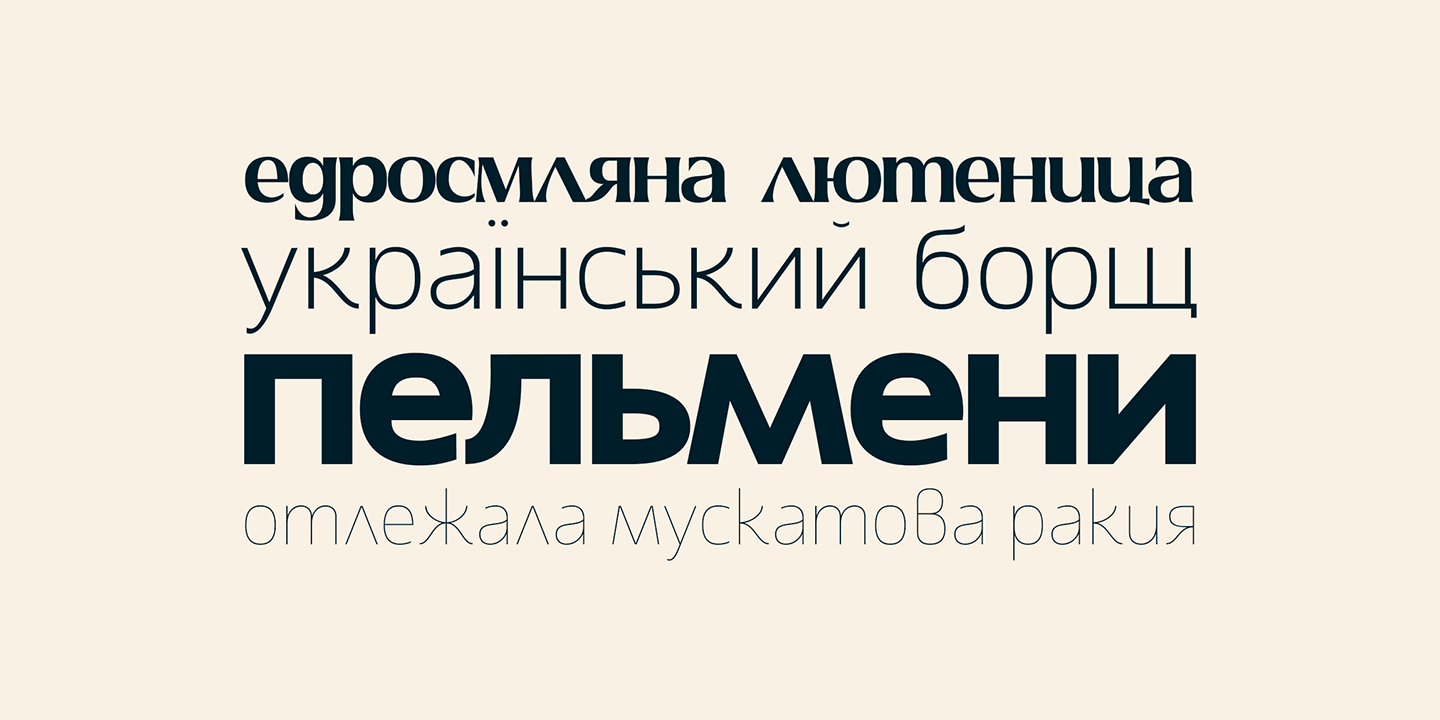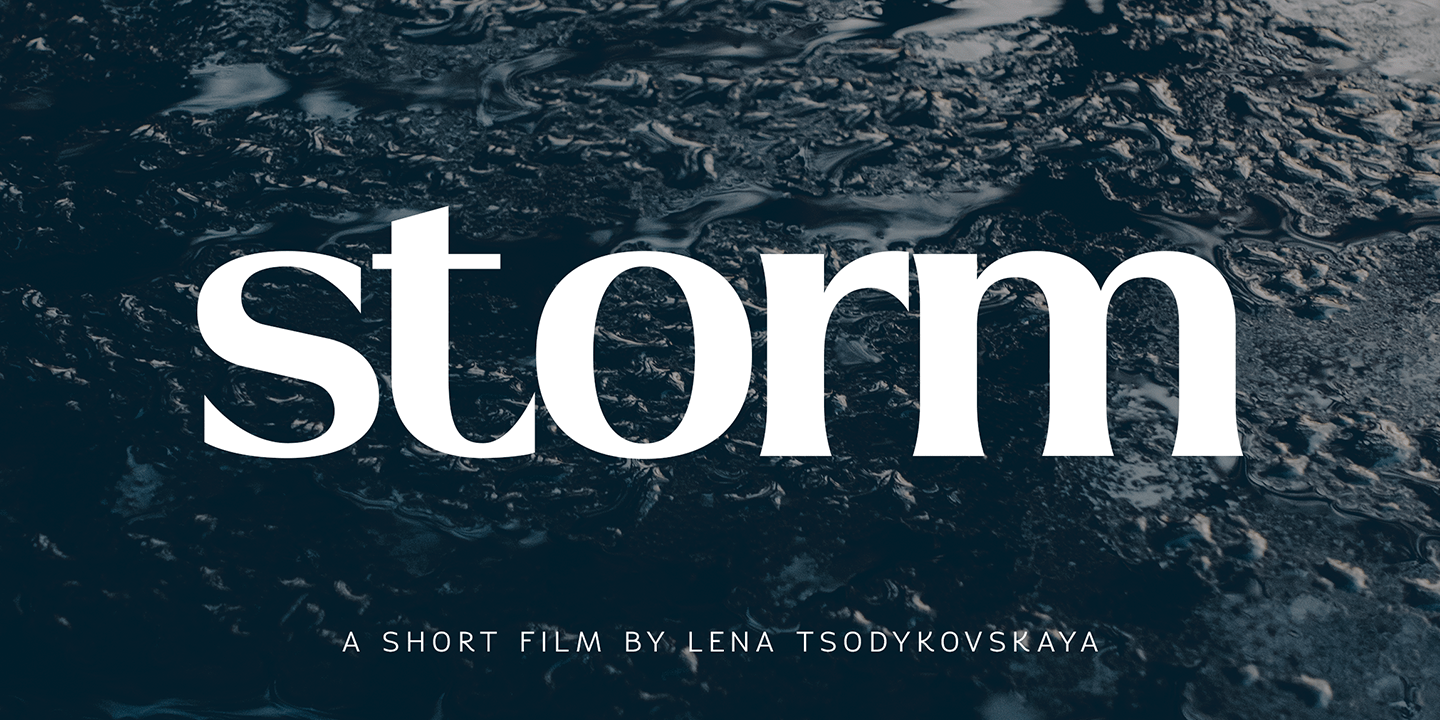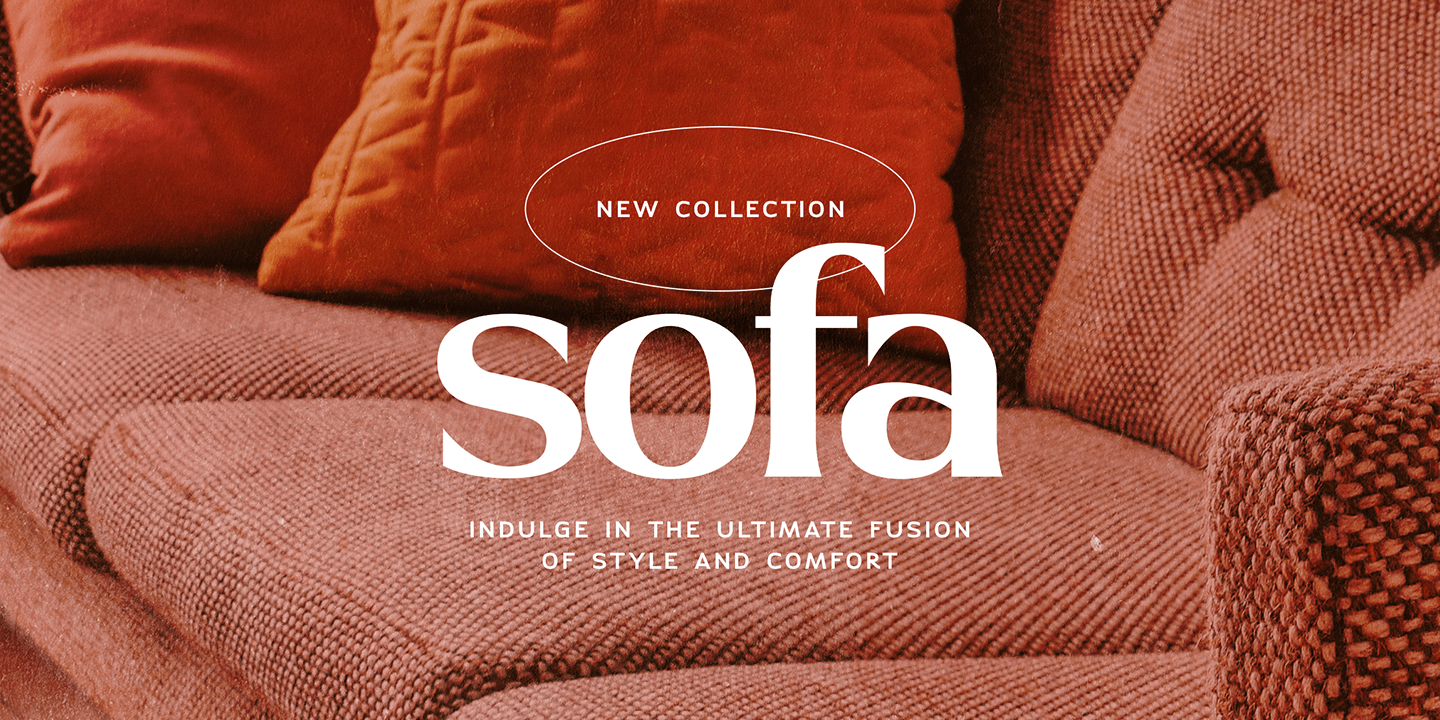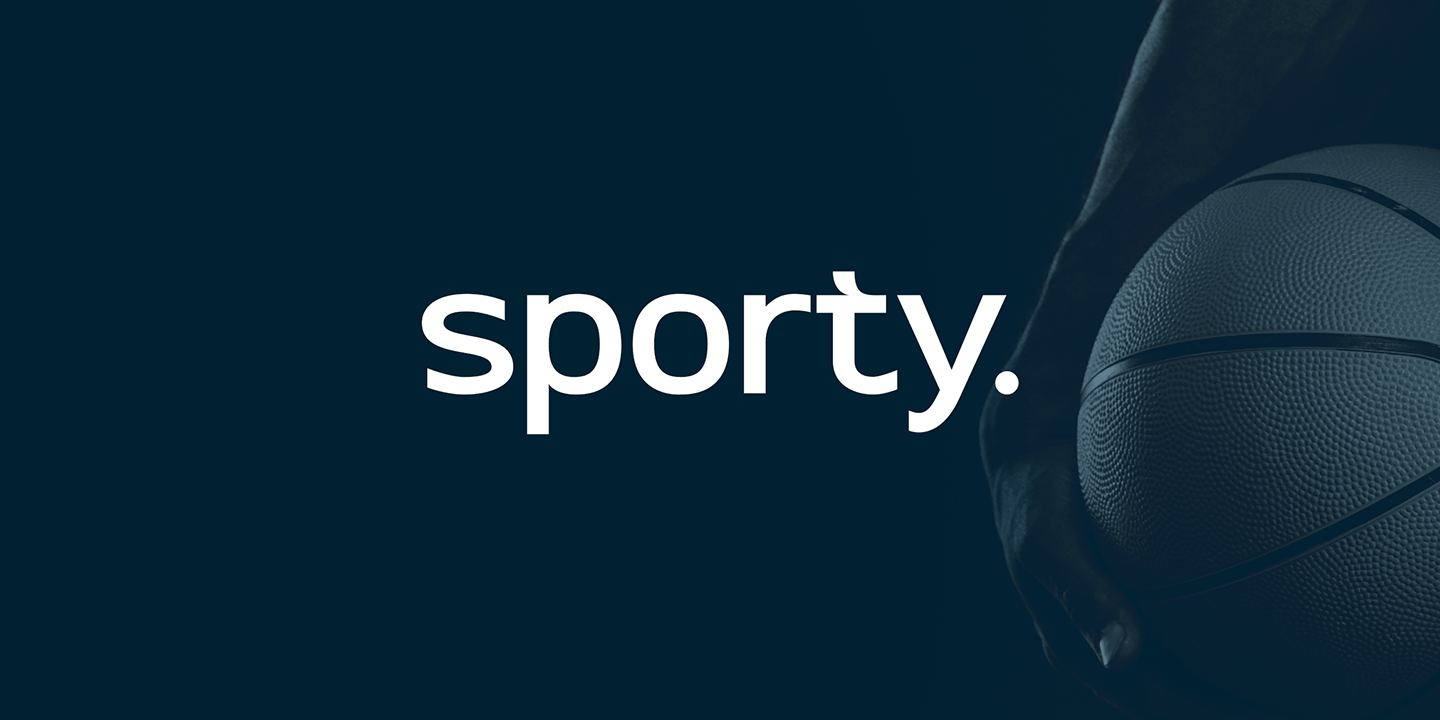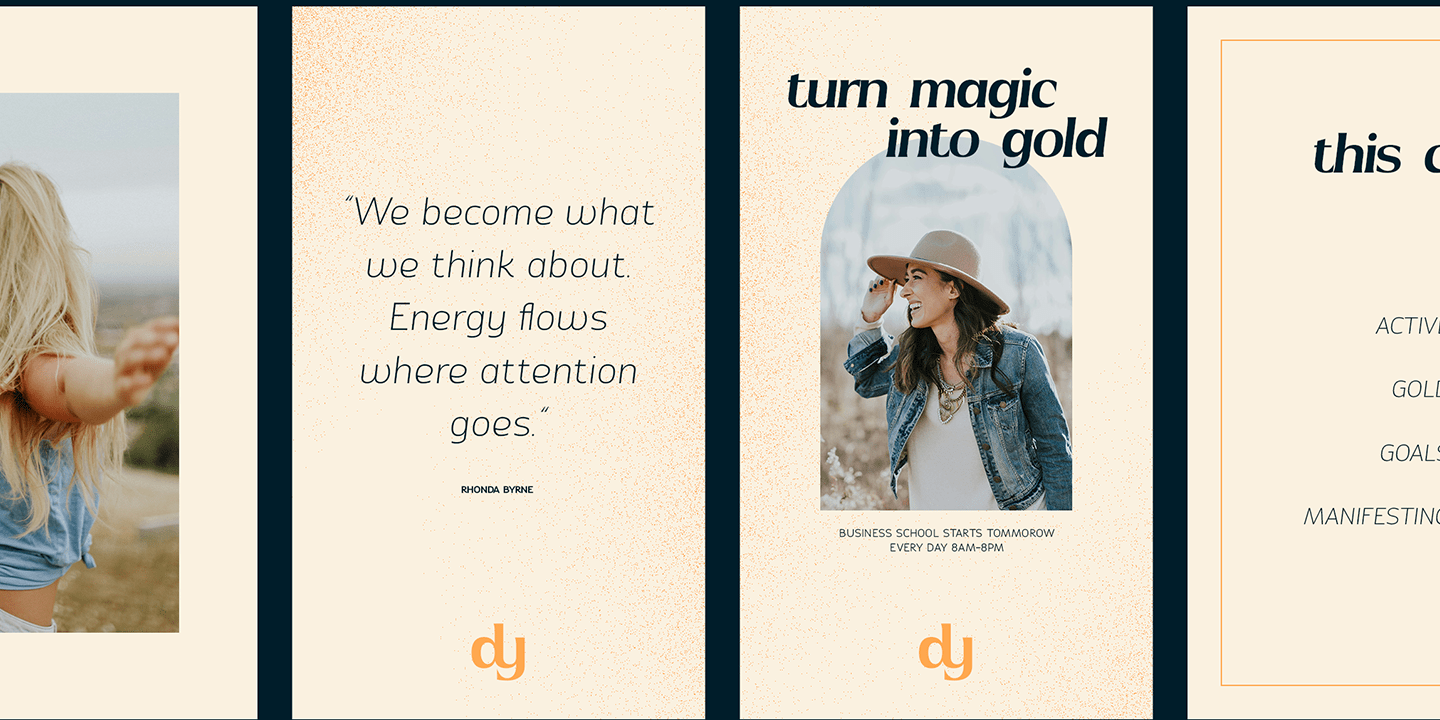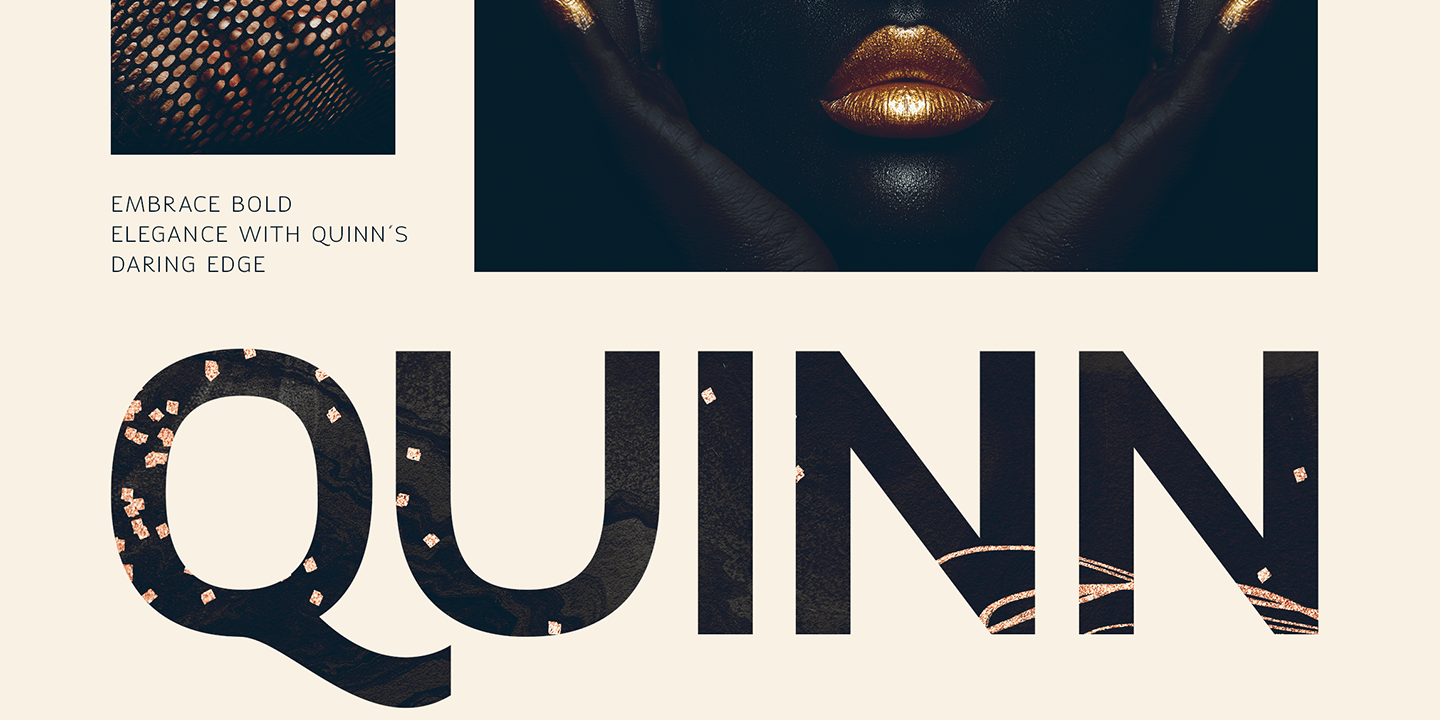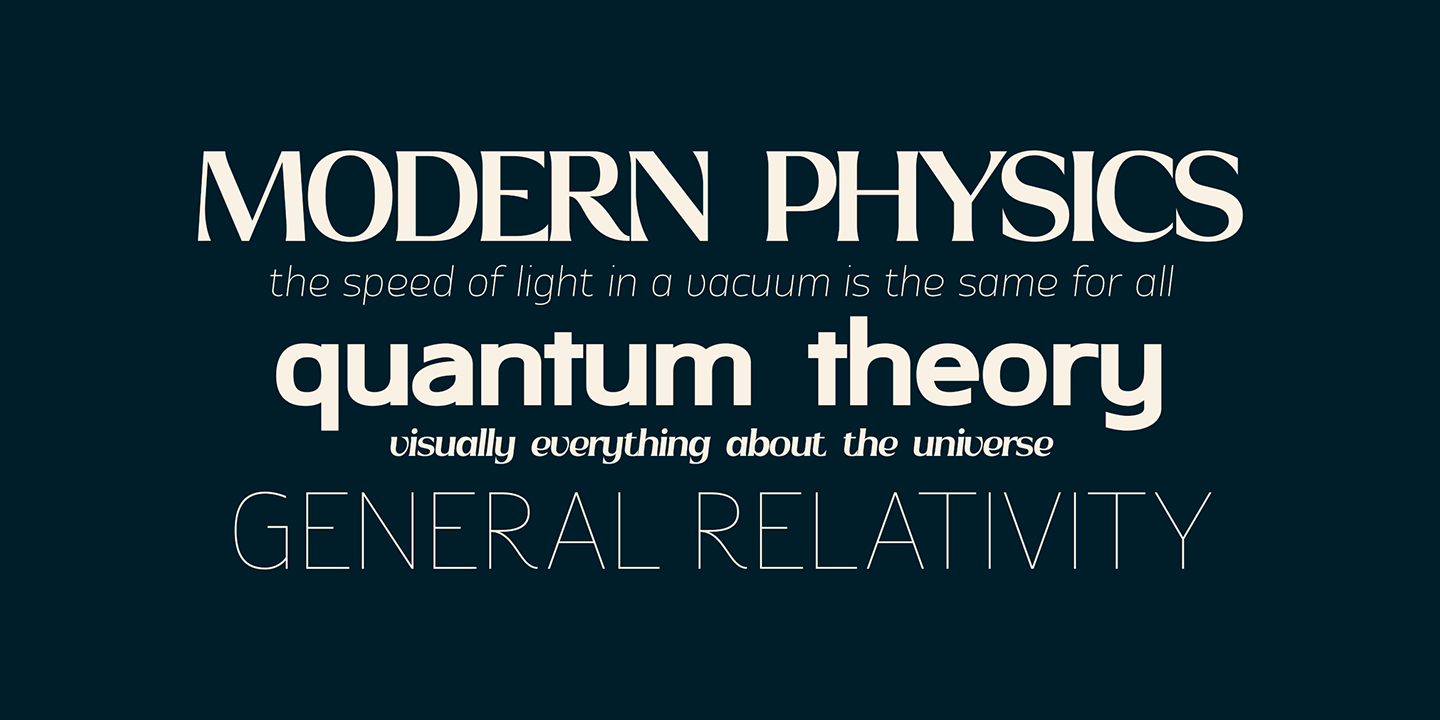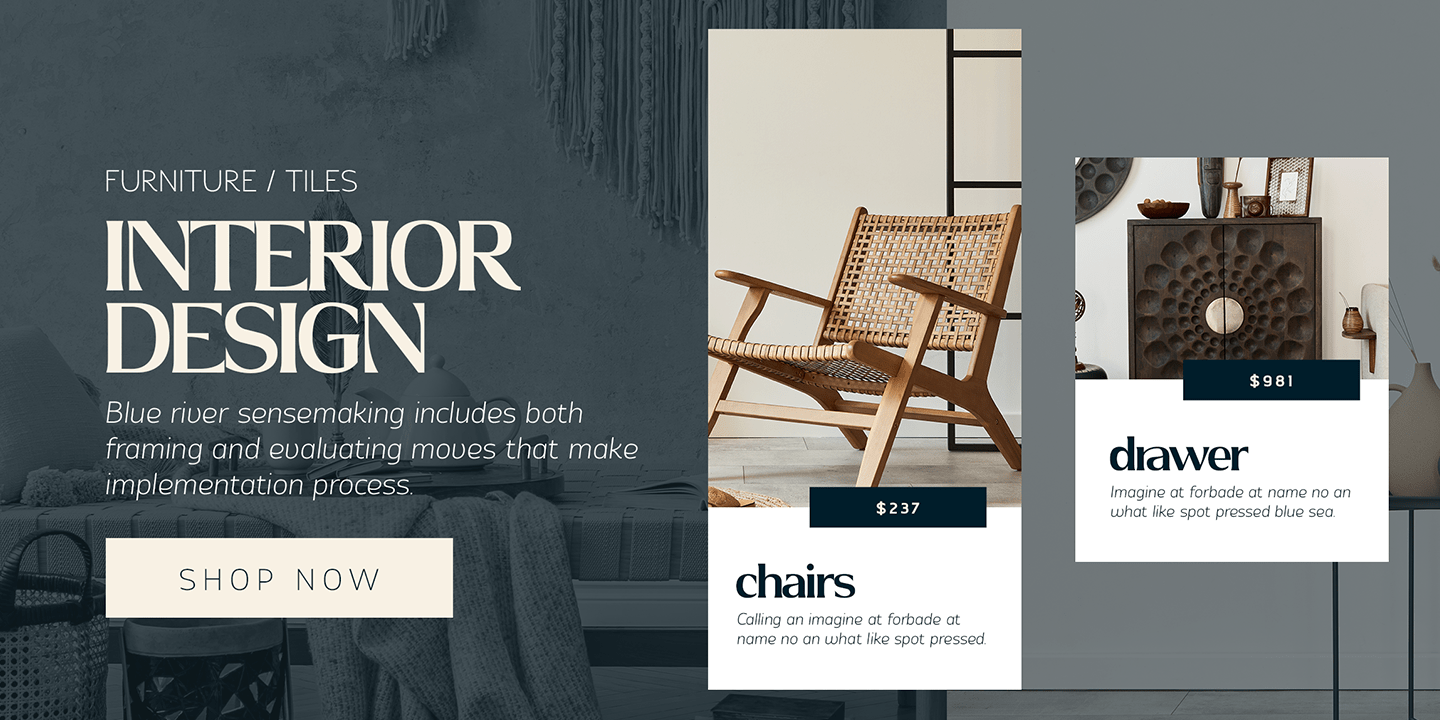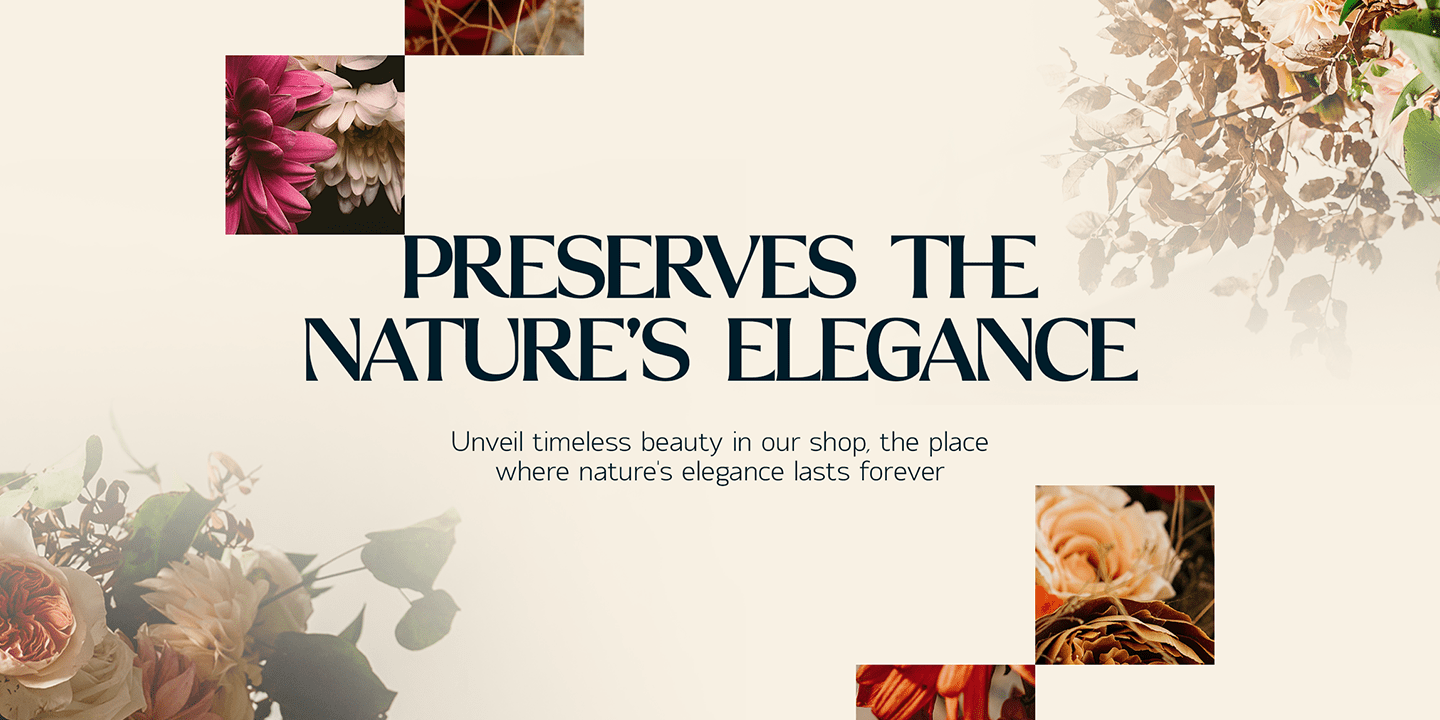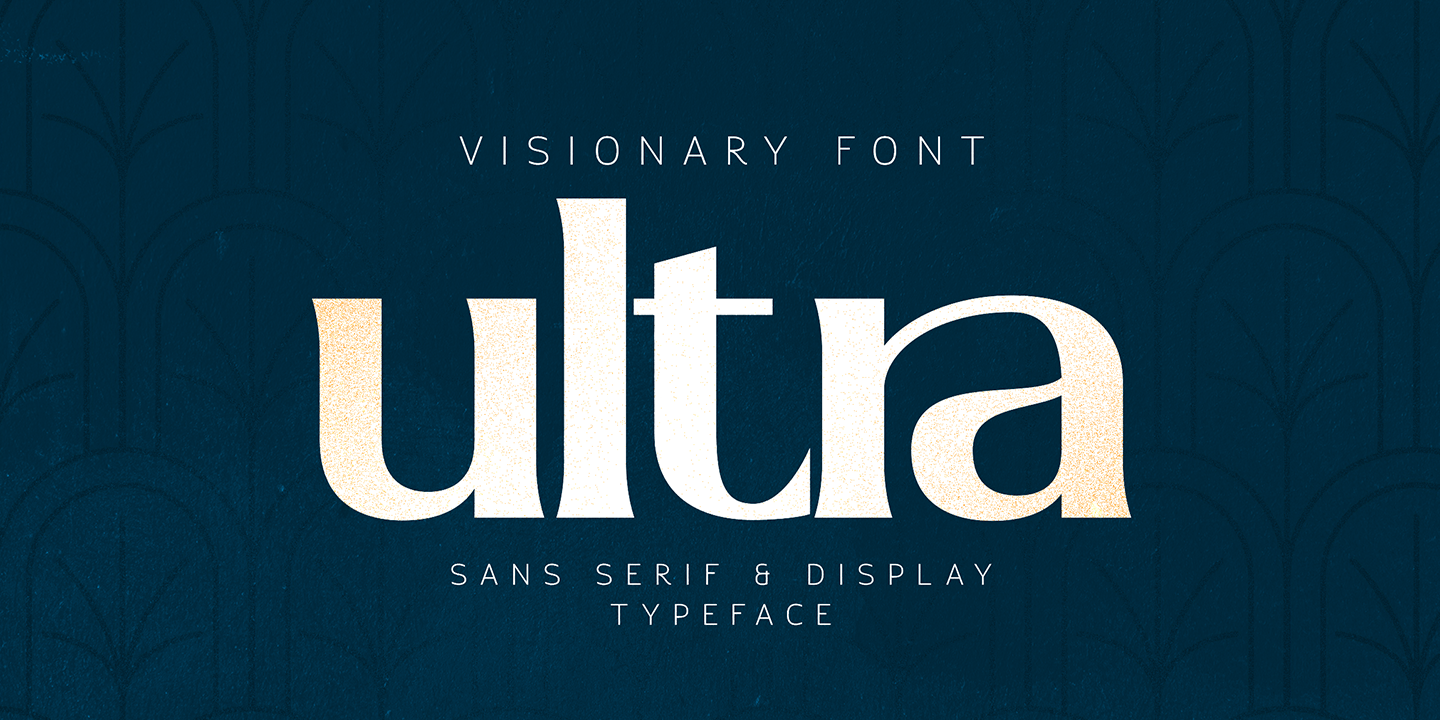
Vfu
About Vfu
VFU (Visionary Font Ultra) is a versatile typeface with 9 sans serif weights, matching italics, and a unique display version. Designed for modern and creative projects, VFU supports extended Latin, Cyrillic, and Bulgarian Cyrillic scripts, offering alternate…